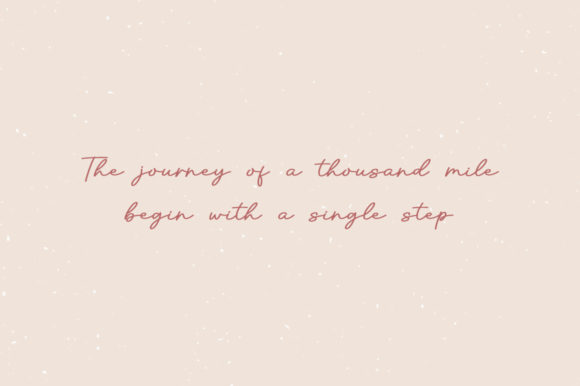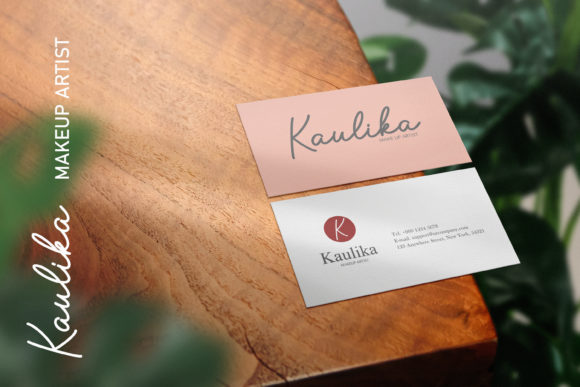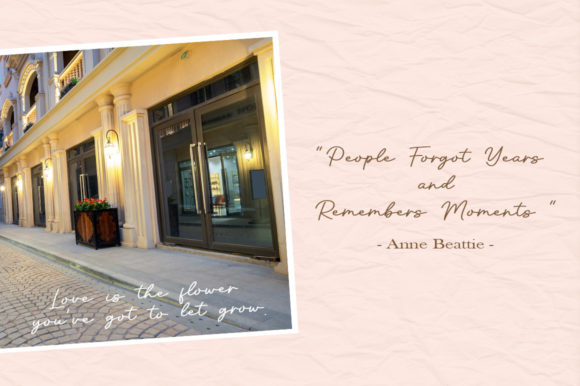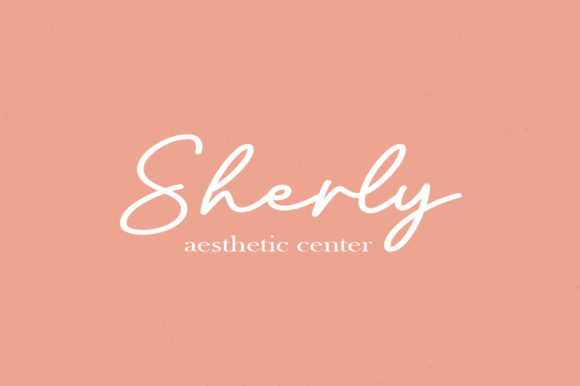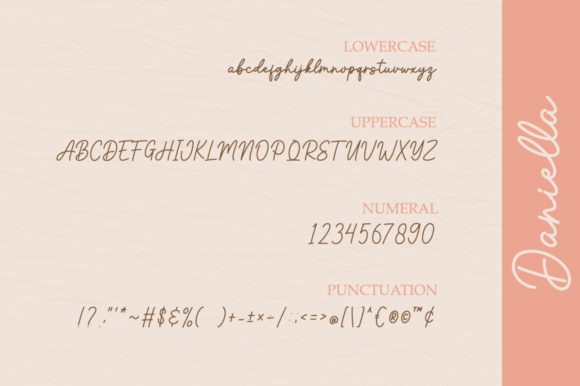
Daniella Font: The Perfect Choice for Romantic and Personalized Designs
Are you a designer or crafter looking for a font that exudes sweetness and joy? Look no further than the Daniella font! This dainty and flowing handwritten font is ideal for creating romantic and personalized designs that will capture the hearts of your audience. In this article, we’ll dive into the world of Daniella font and explore its features, uses, and benefits.
What is Daniella Font?
Daniella font is a beautiful, handwritten font that is characterized by its delicate and flowing strokes. It’s a font that screams romance and elegance, making it perfect for designs that require a touch of sophistication. The font is designed to look like it’s been written with a pen, giving it a personal and intimate feel that’s hard to replicate with other fonts.
Features of Daniella Font
So, what makes Daniella font so special? Here are some of its key features:
- Dainty and flowing strokes: Daniella font features delicate and flowing strokes that give it a romantic and elegant feel.
- Handwritten look: The font is designed to look like it’s been written with a pen, giving it a personal and intimate feel.
- Sweet and joyful: Daniella font exudes sweetness and joy, making it perfect for designs that require a happy and uplifting tone.
- Versatile: The font is versatile and can be used for a variety of designs, from wedding invitations to cards and more.
Uses of Daniella Font
Daniella font is a versatile font that can be used for a variety of designs. Here are some of the most popular uses of the font:
- Wedding invitations: The font’s romantic and elegant feel makes it perfect for wedding invitations, save-the-date cards, and other wedding-related designs.
- Cards: Daniella font is also great for creating cards for special occasions, such as birthdays, anniversaries, and holidays.
- Personalized gifts: The font’s personal and intimate feel makes it perfect for creating personalized gifts, such as customized mugs, tote bags, and more.
- Branding: Daniella font can also be used for branding purposes, such as creating a logo or typography for a business or product.
Benefits of Using Daniella Font
So, why should you use Daniella font for your designs? Here are some of the benefits of using this beautiful font:
- Unique and eye-catching: Daniella font is a unique and eye-catching font that will make your designs stand out from the crowd.
- Emotional connection: The font’s personal and intimate feel can help create an emotional connection with your audience, making your designs more relatable and engaging.
- Easy to read: Despite its delicate and flowing strokes, Daniella font is easy to read, making it perfect for designs that require a lot of text.
- Customizable: The font can be customized to fit your design needs, allowing you to adjust the size, color, and style to suit your brand or design.
Tips for Using Daniella Font
Here are some tips for using Daniella font in your designs:
- Use it sparingly: While Daniella font is beautiful, it can be overwhelming if used too much. Use it sparingly to create a focal point in your design.
- Pair it with other fonts: Daniella font can be paired with other fonts to create a unique and interesting contrast. Try pairing it with a bold font for a striking effect.
- Experiment with colors: The font looks great in a variety of colors, from soft pastels to bold and bright hues. Experiment with different colors to find the one that works best for your design.
Daniella font is a beautiful and versatile font that is perfect for creating romantic and personalized designs. Its dainty and flowing strokes, handwritten look, and sweet and joyful feel make it ideal for a variety of designs, from wedding invitations to cards and more. With its unique and eye-catching style, emotional connection, and ease of use, Daniella font is a great choice for designers and crafters looking to add a touch of elegance and sophistication to their designs.